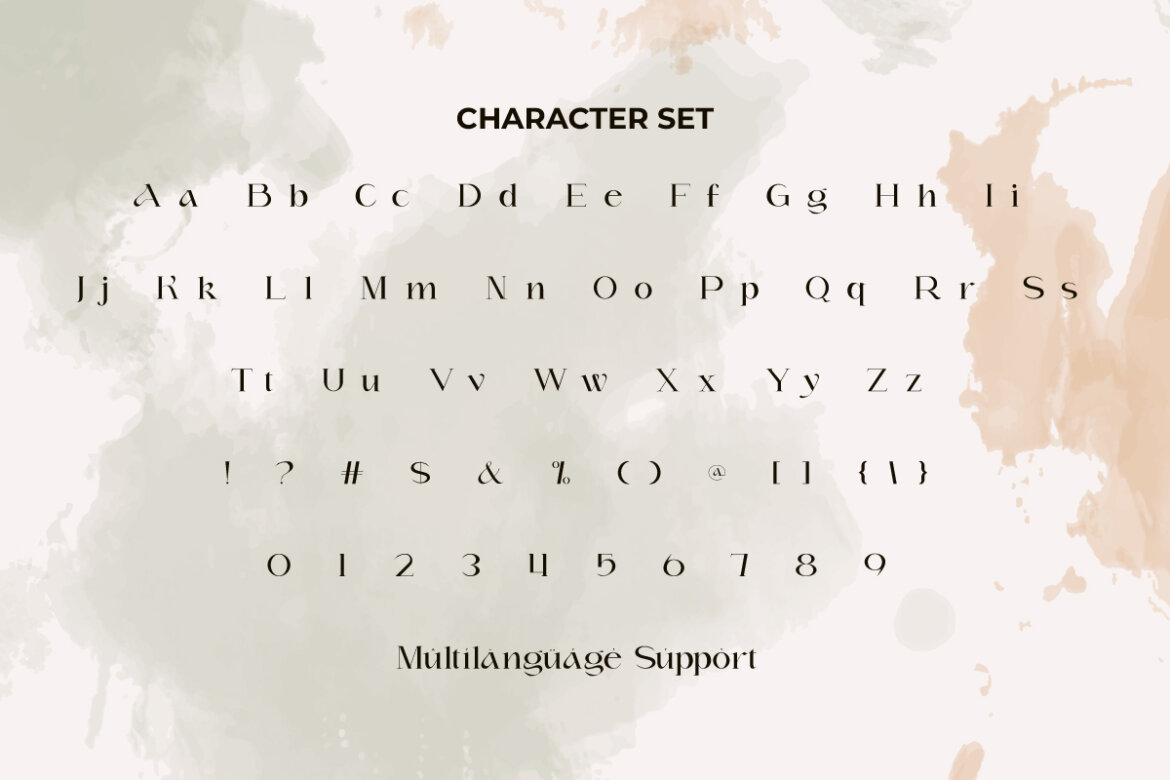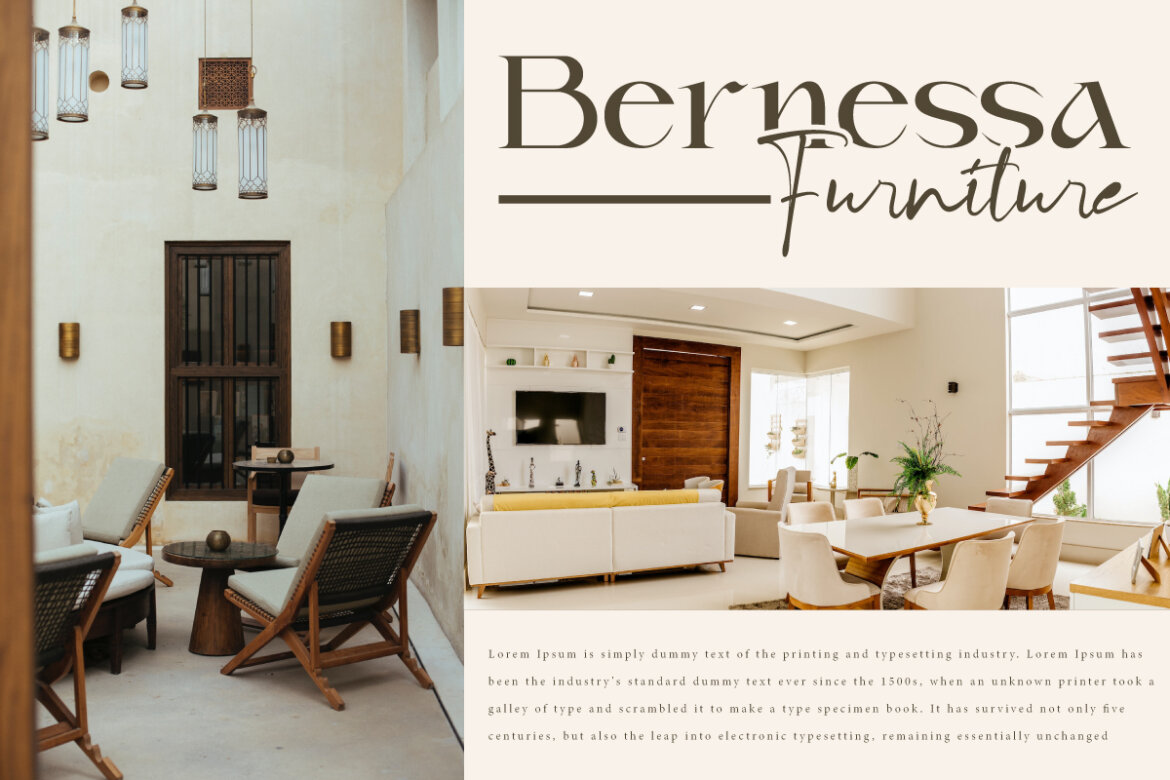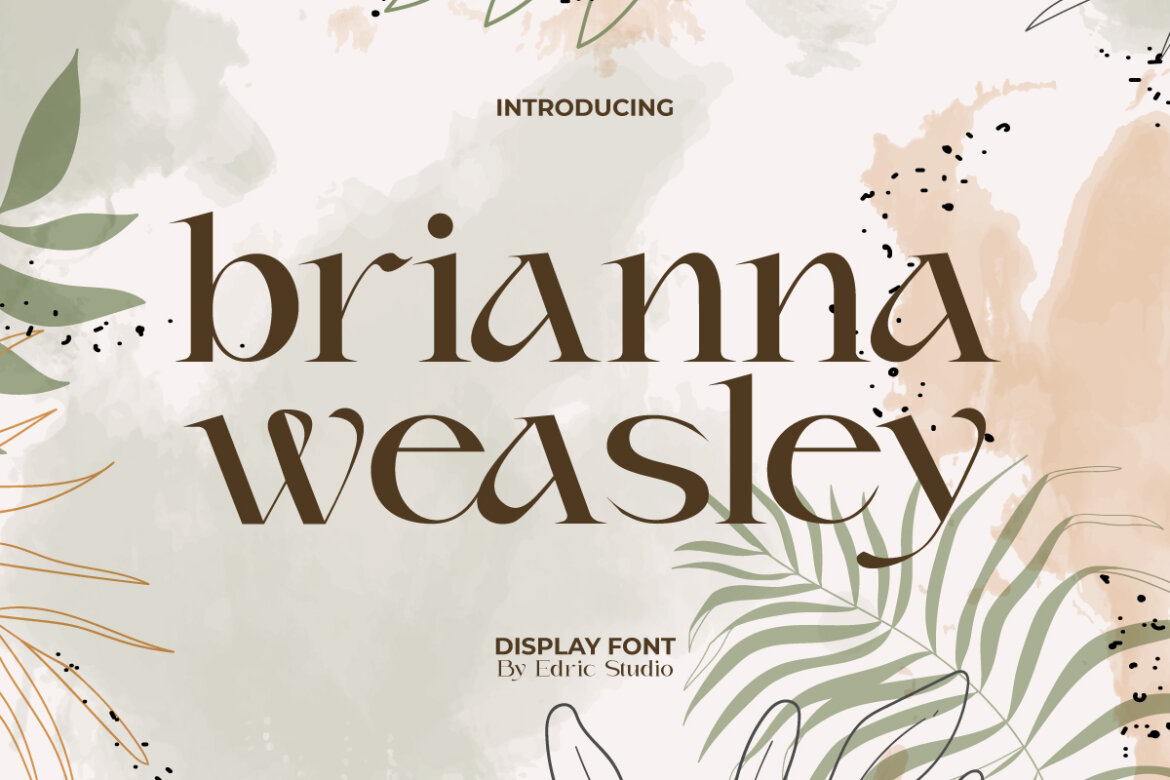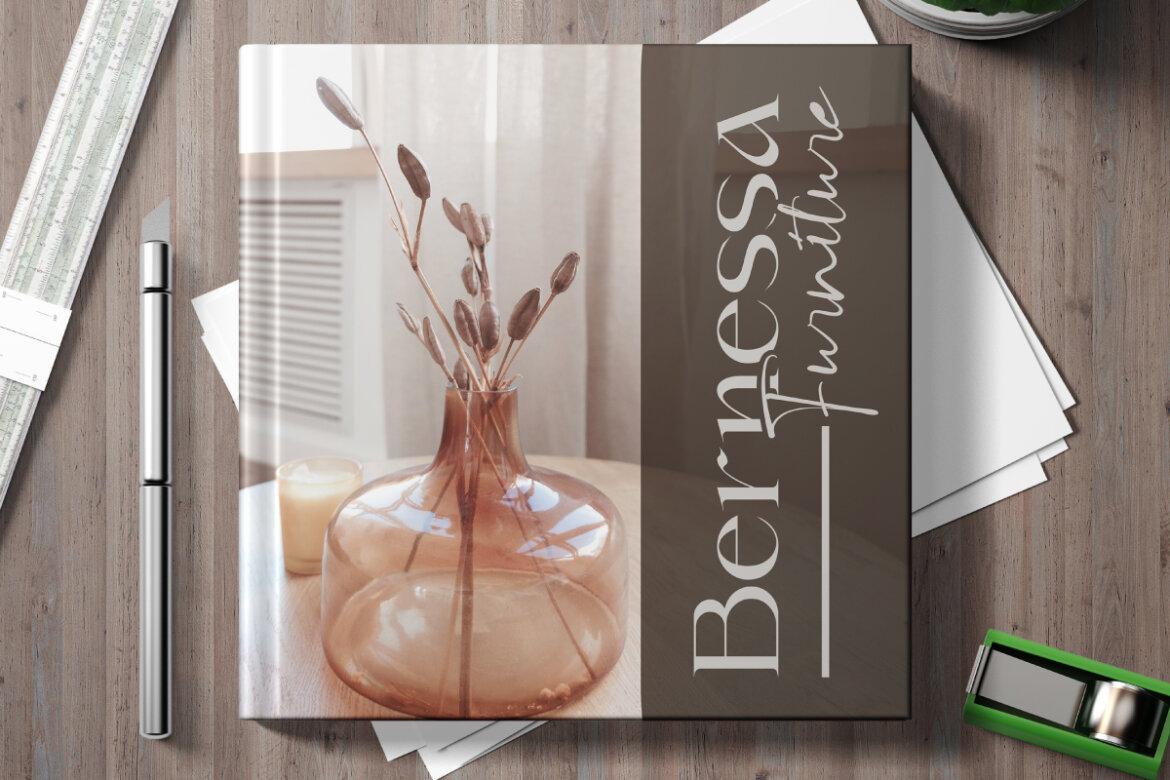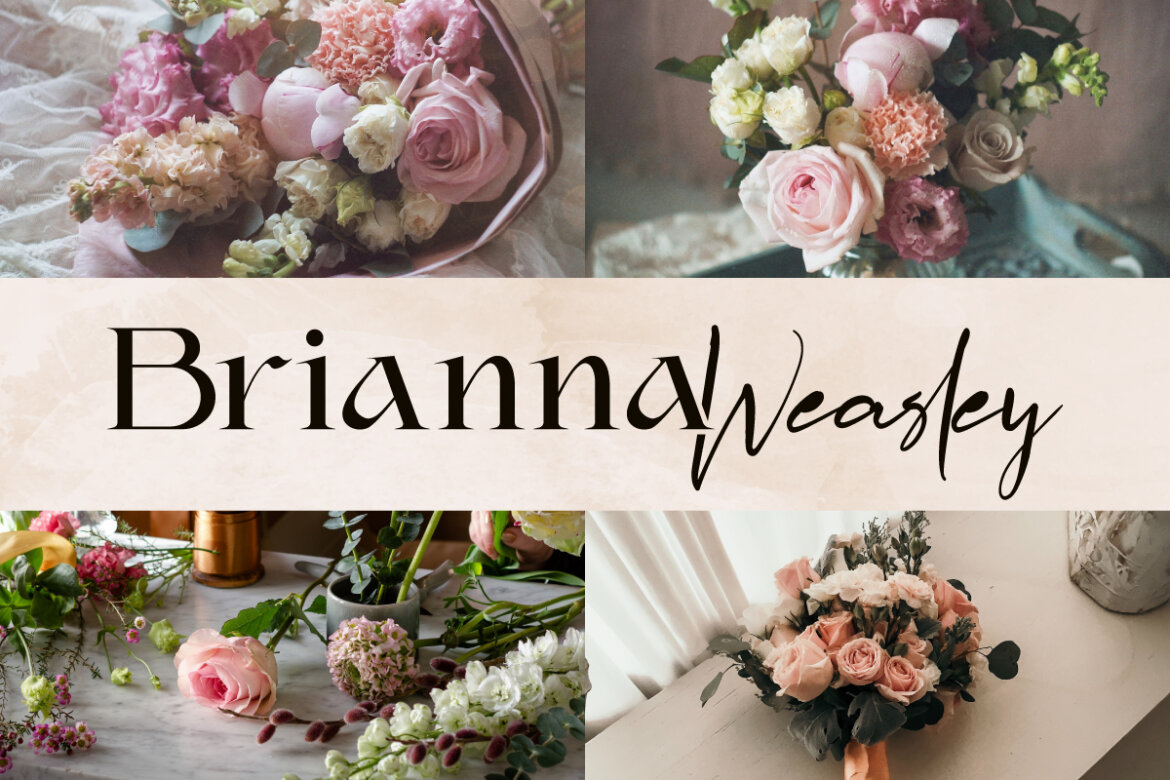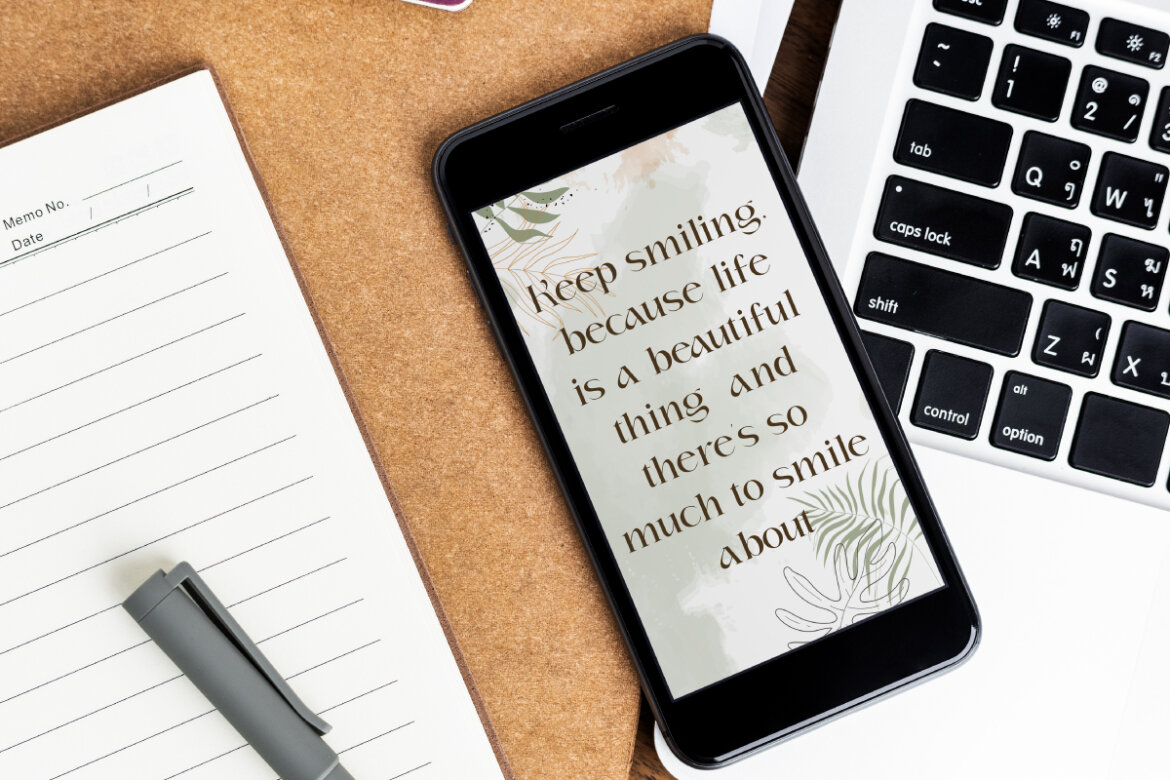
Brianna Weasley
Brianna Weasley Font is an elegant beautiful serif display font with modern look. The thin and thick lines in this font look balanced to give a beautiful luxurious impression. It will be suitable for any business, such as accessories and jewelry, beauty product, entertainment, event or wedding organizer, fashion, photography, printing, publishing, restaurant, writer, and many more!
Brianna Weasley Font comes with full set of Uppercase and Lowercase Basic Characters, Number, a large range of Punctuation, and Symbol. It has a fancy set, perfectly managed with well spaced and kerning. Brianna Weasley Font will be able to complement for any design (with extended license) including: brand image, cover, custom design, invitation, label, merchandise, packaging design, poster, quote, screen print, signage, stationery, sticker, title, website page, etc.